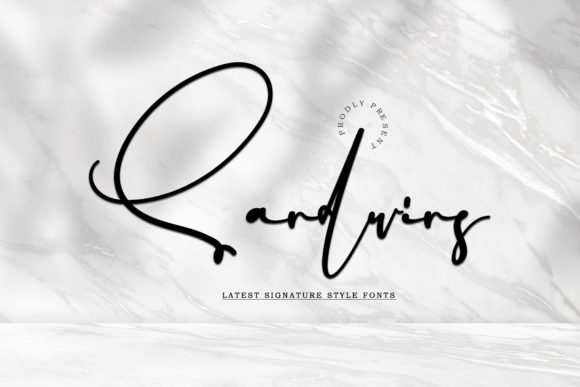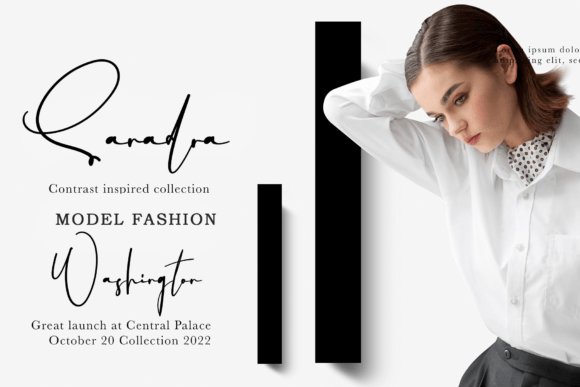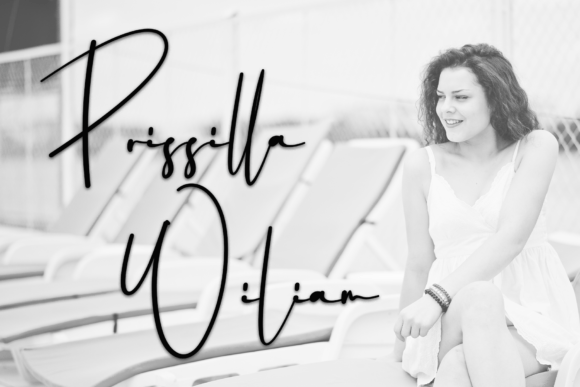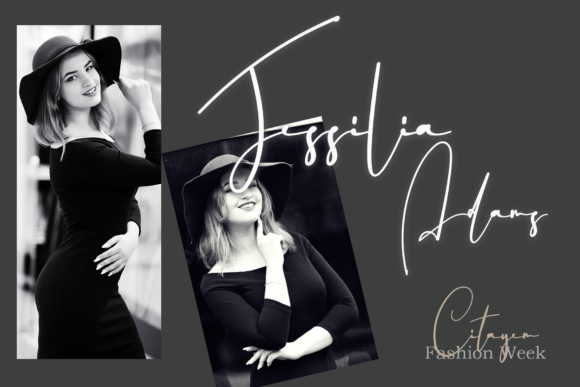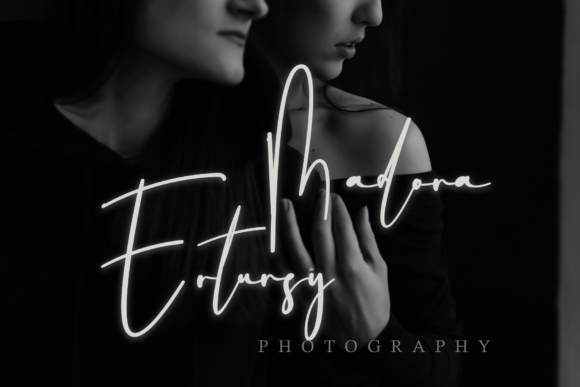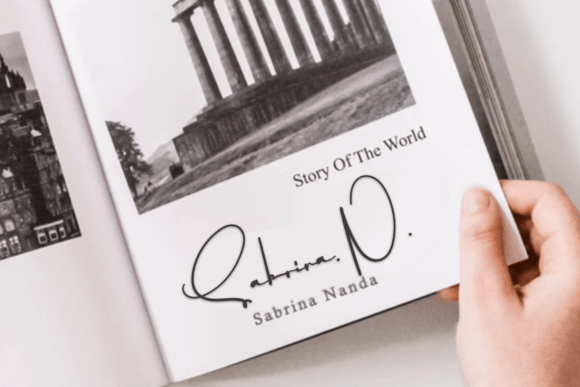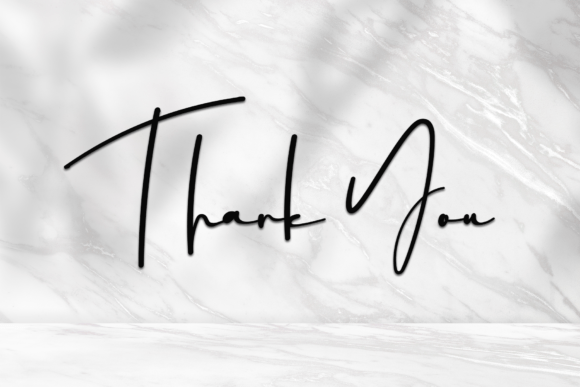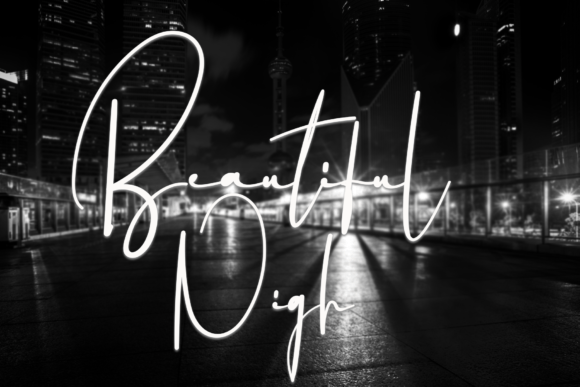
Sandwins Font
About Sandwins Font
Sandwins is a distinctive, round-lettered handwritten font that has been meticulously crafted to achieve specific and desired results. This unique font is well-suited for a variety of applications, making it versatile and adaptable for different creative projects.
The rounded letters of Sandwins contribute to its distinctiveness, providing a soft and approachable aesthetic. This feature makes it particularly suitable for writing titles, creating invitations, composing letters, and serving various other purposes where a handwritten and friendly appearance is desired.
Whether you’re working on digital or print projects, Sandwins adds a touch of individuality and creativity. Its carefully designed letterforms ensure that the font stands out and makes a statement, enhancing the visual appeal of your content.
Consider using Sandwins to infuse a personalized and warm feel into your designs. Its unique characteristics make it a valuable tool for those seeking a handwritten font that goes beyond the conventional, allowing you to create titles, invitations, and various other products with a distinct and memorable style.